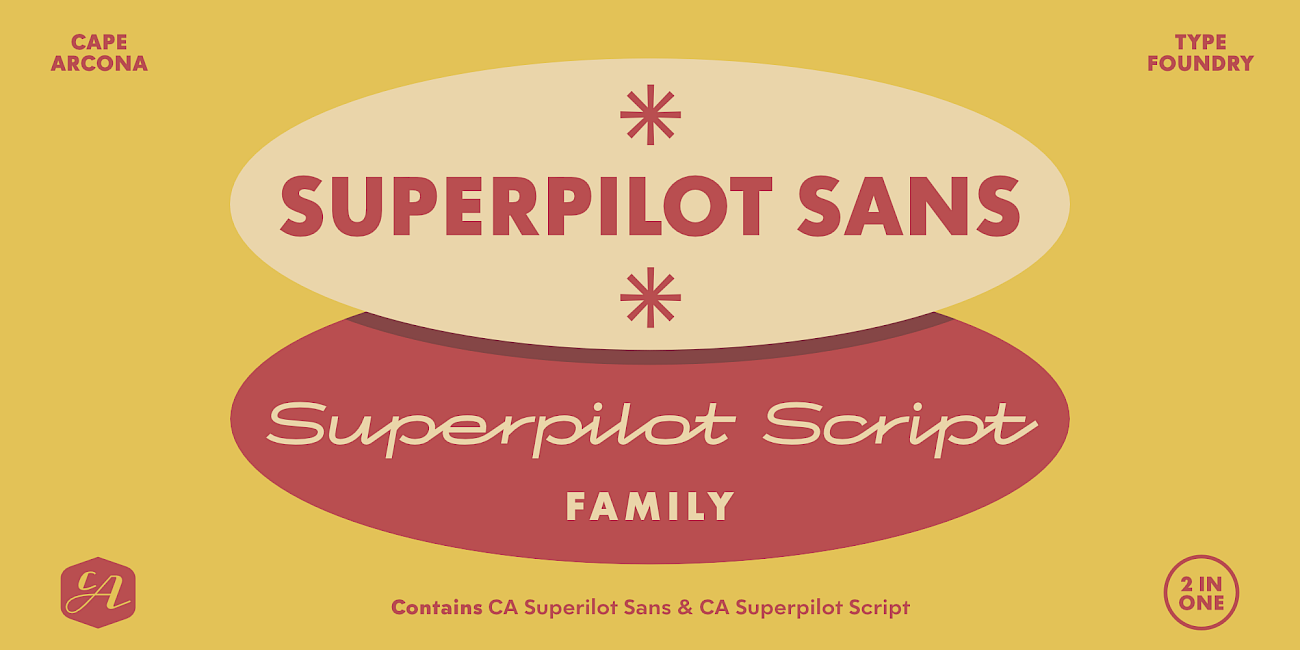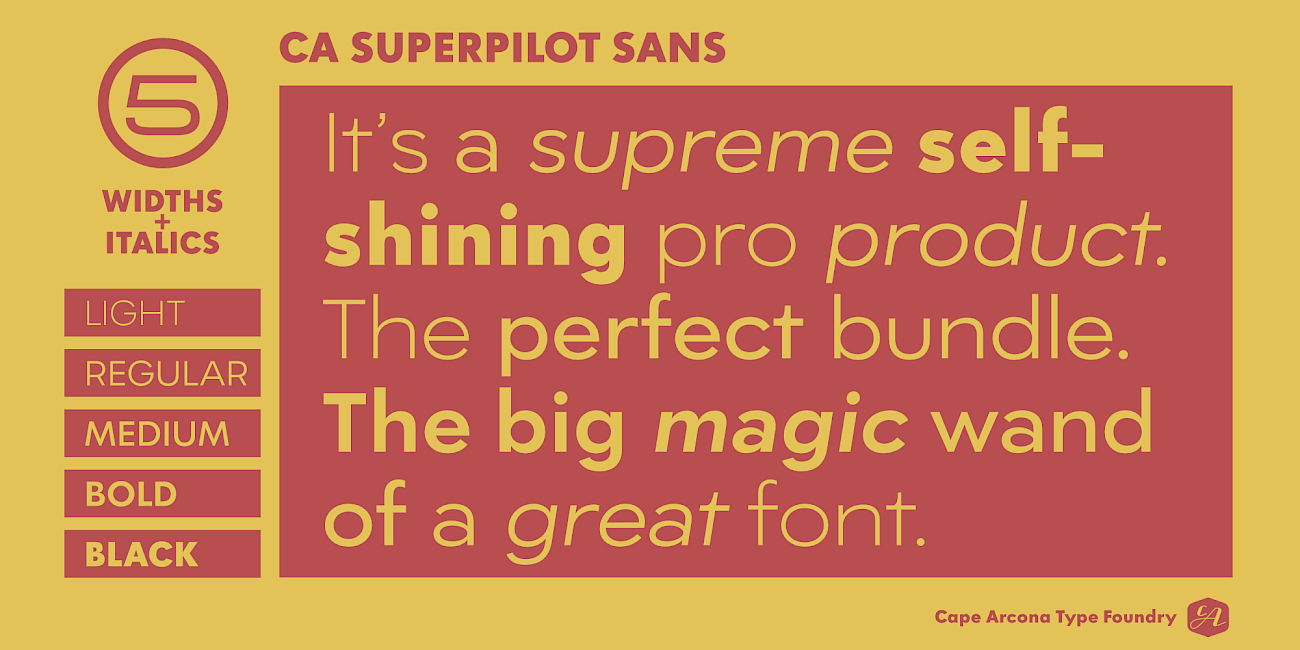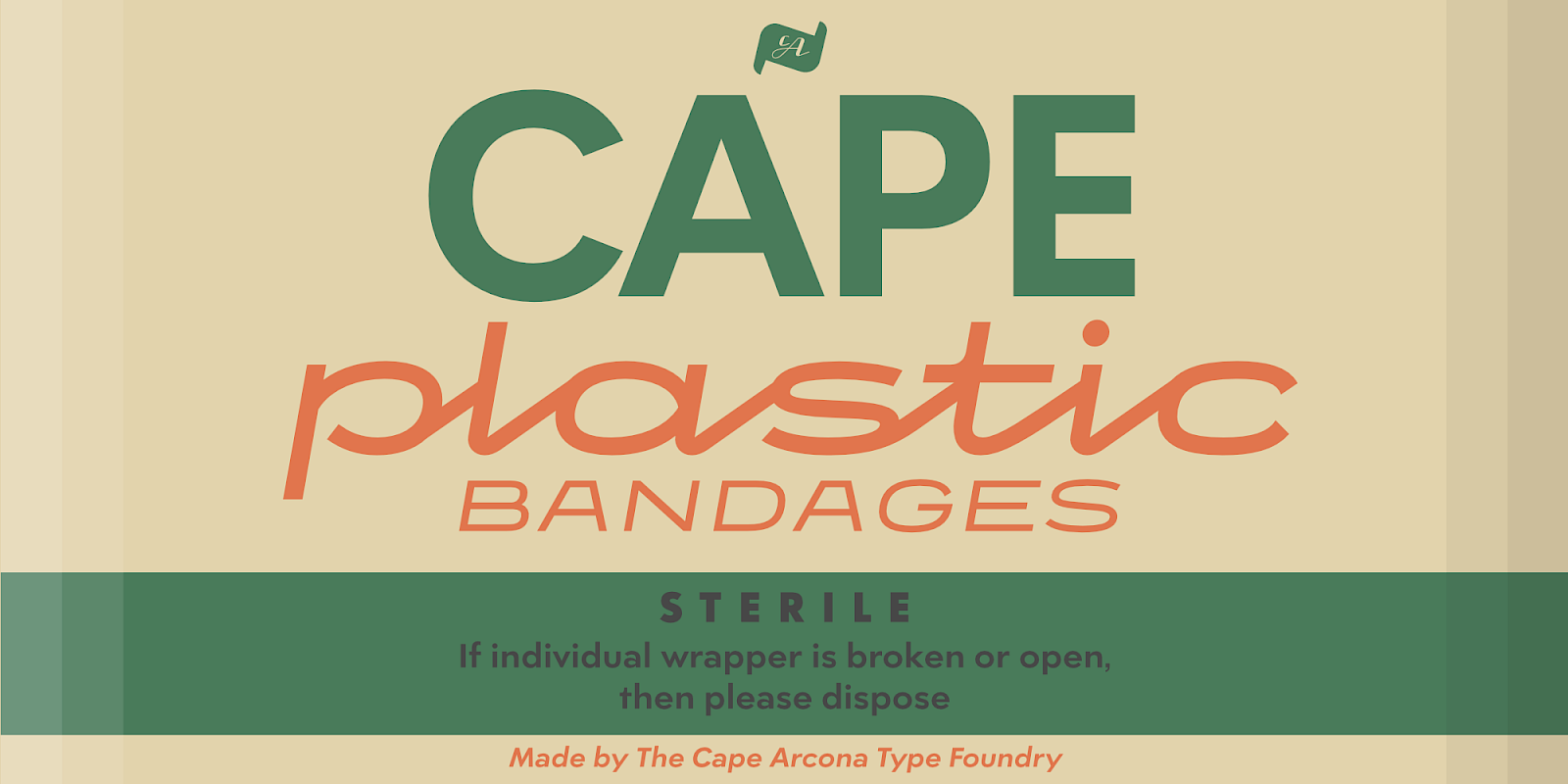
Let's explore the world of CA Superpilot Sans, a modern interpretation of the renowned Futura typeface. This typeface offers a sleek and contemporary option for those seeking a clean and adaptable typographic solution. With five weights and companion italics, CA Superpilot Sans offers great flexibility for a wide range of design projects. In addition, its extensive Central European character set and alternate glyphs ensure that your designs can transcend language barriers and make an impact wherever they are viewed.
Now let's turn our attention to the captivating CA Superpilot Script fonts. Inspired by vintage camera equipment logos and typefaces from the 1950s, this monoline script font has a unique and nostalgic charm. With both regular and italic styles, CA Superpilot Script offers a variety of ways to add character and personality to your projects. Surprisingly, even when used in capitals, this script font commands attention and makes a bold statement. Its bold strokes and clean lines redefine the boundaries of script, allowing you to effortlessly create eye-catching headlines that leave a lasting impression.
But the real power lies in the harmonious combination of CA Superpilot Sans and Script. Together, they form a versatile duo that unlocks an extraordinary level of flexibility to any design endeavor. Whether you're working on a branding project, developing a compelling website, or curating a stunning print design, the CA Superpilot Sans & Script duo is the ideal companion. This powerful combination allows your creativity to flourish without limits, ensuring exceptional results that will captivate audiences far and wide.